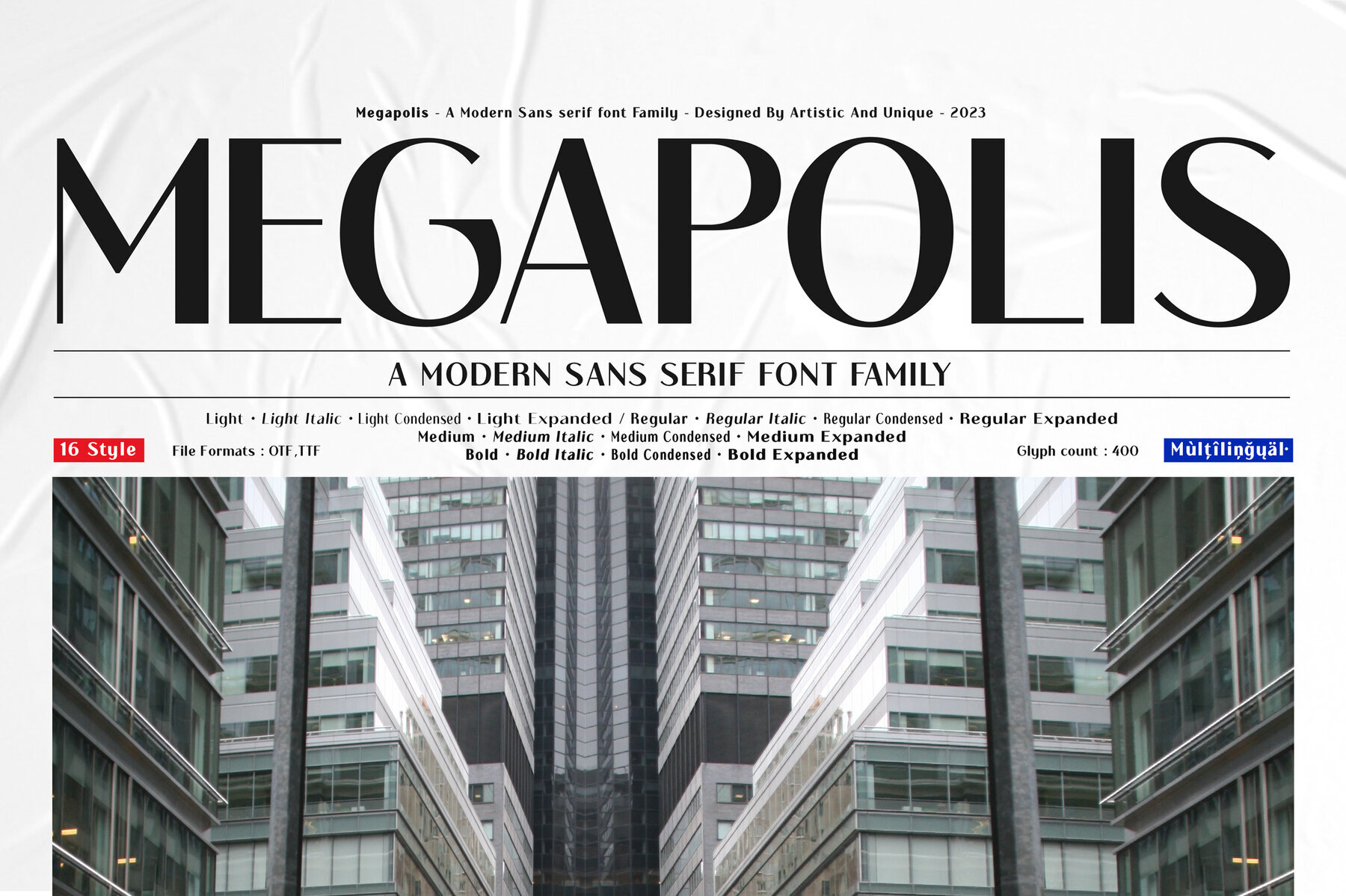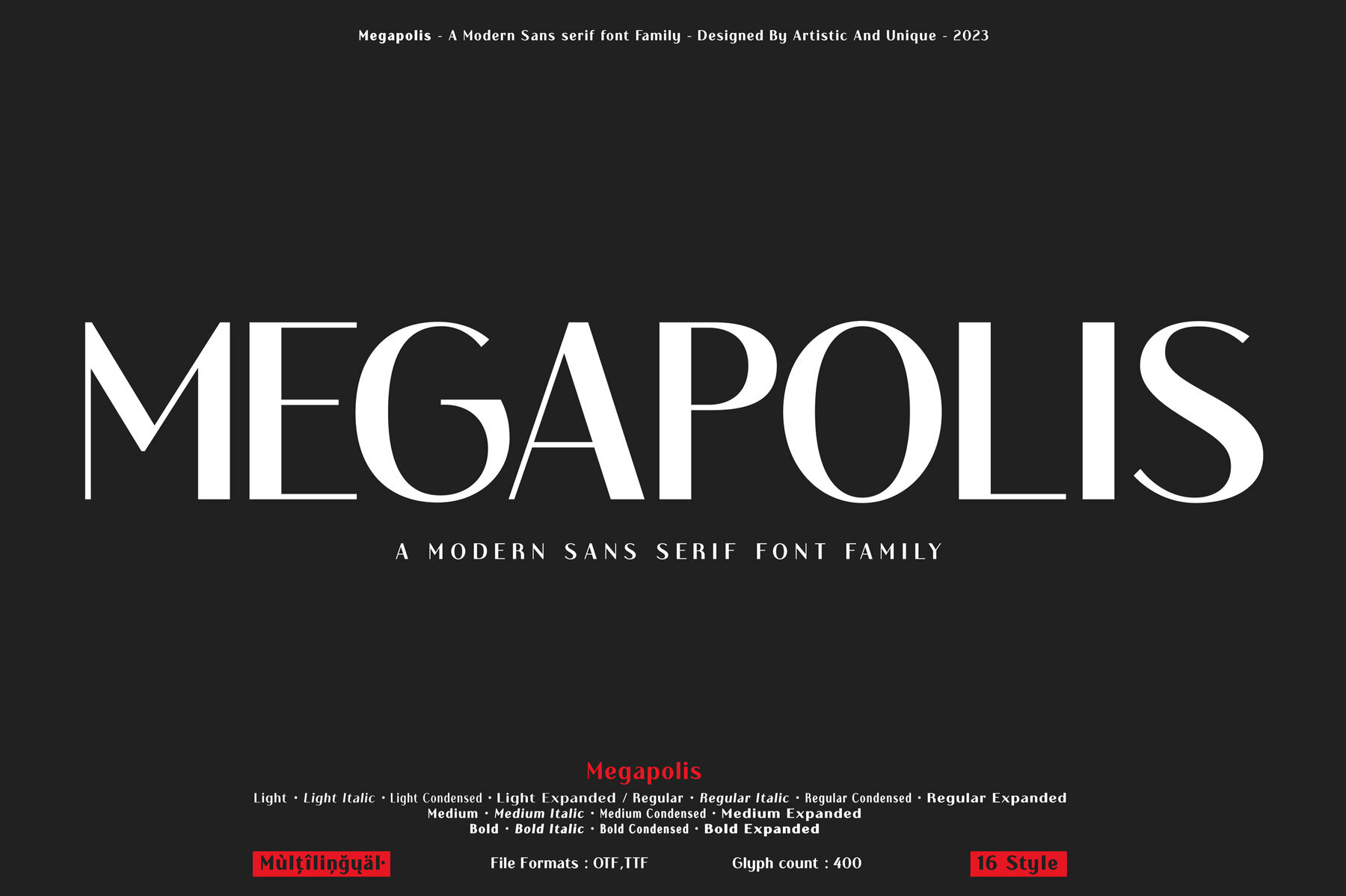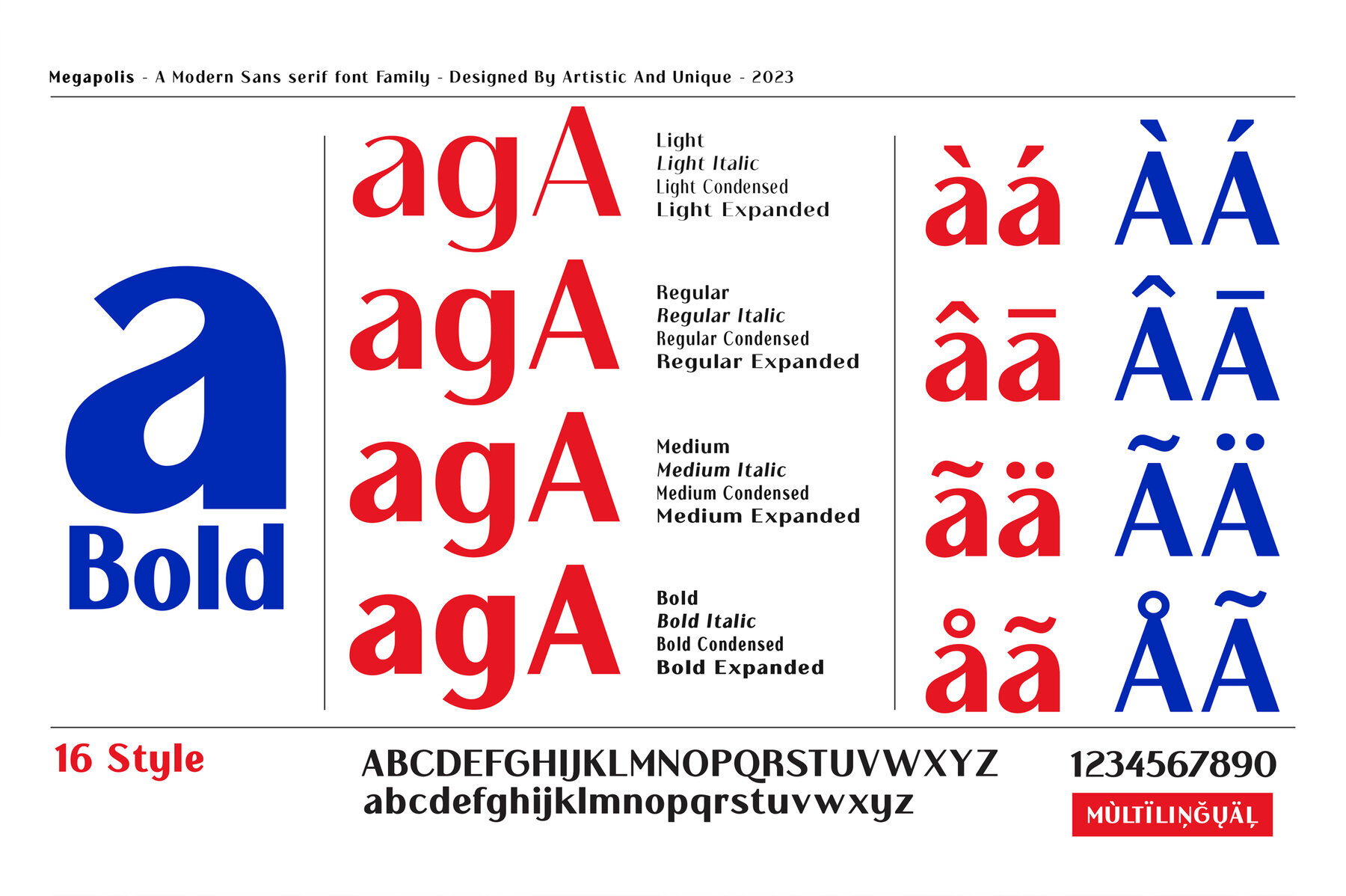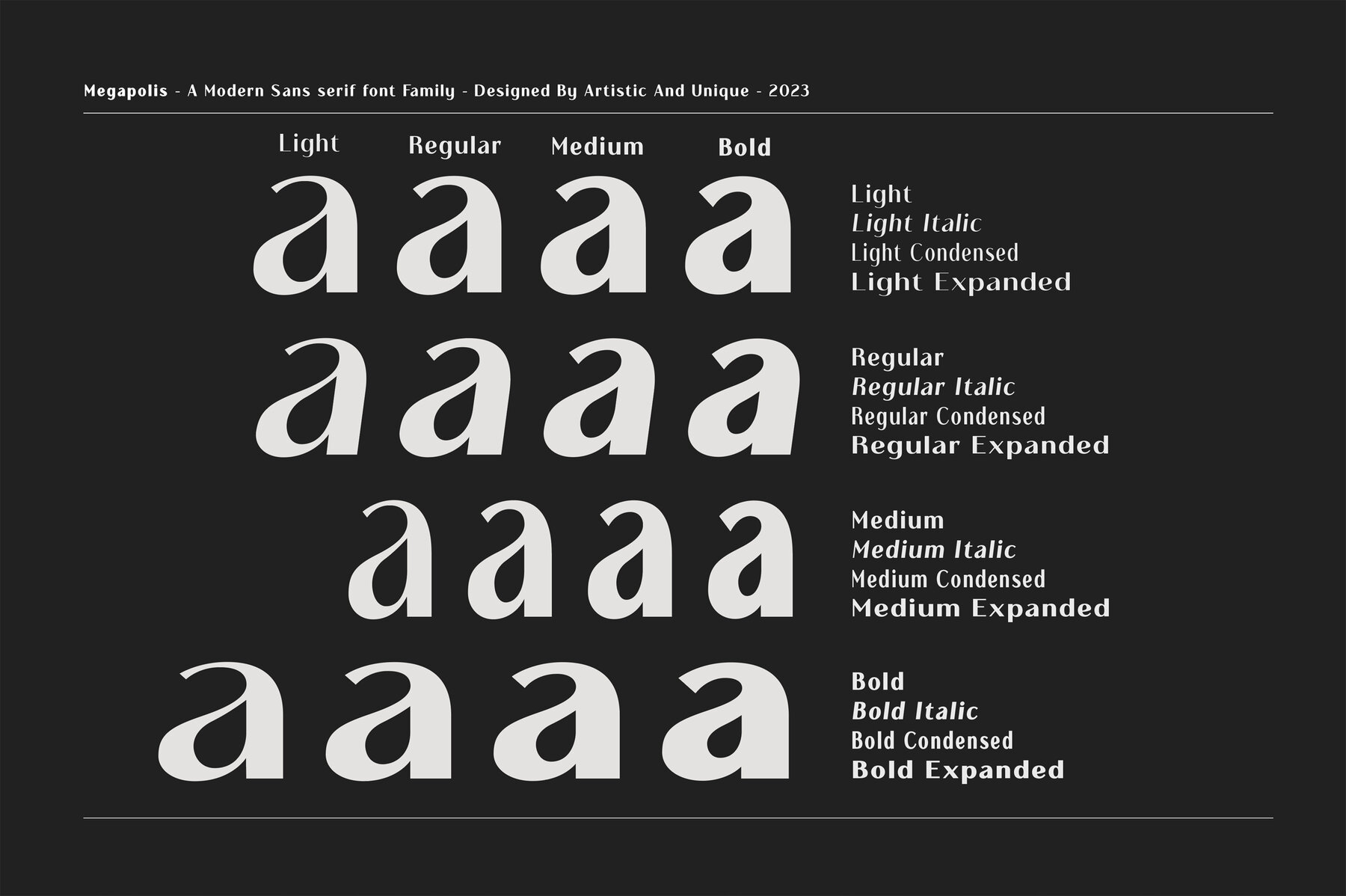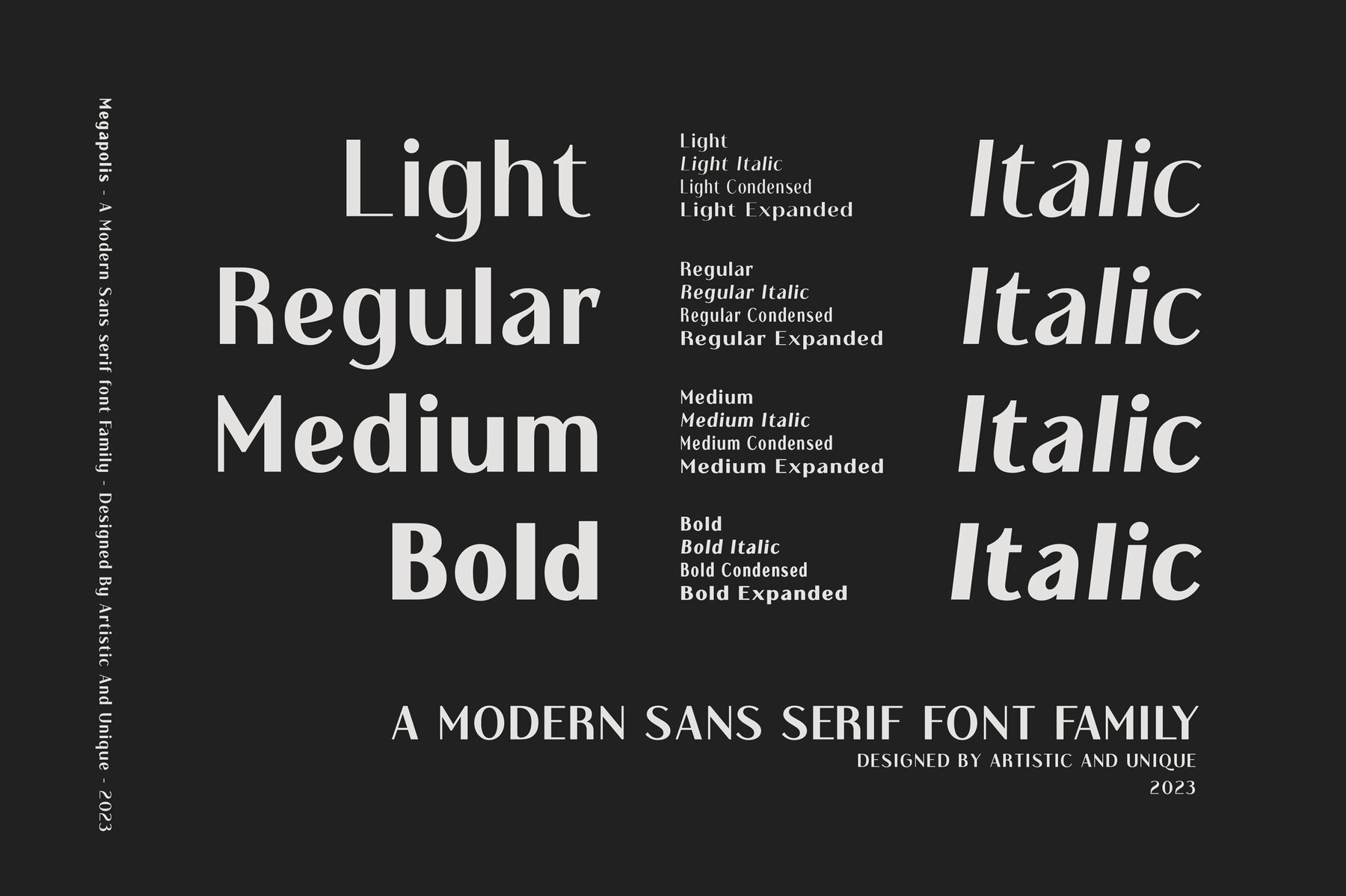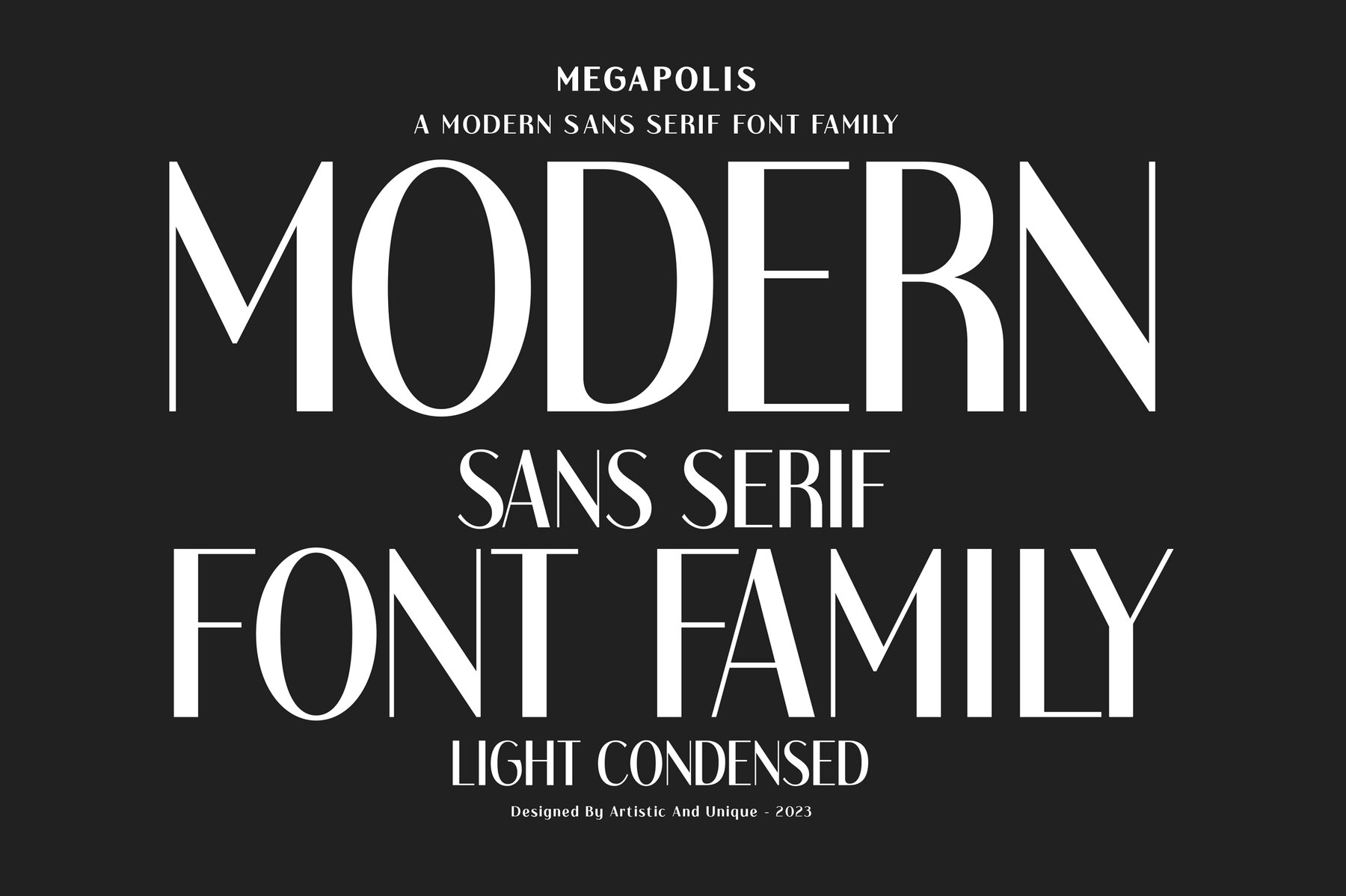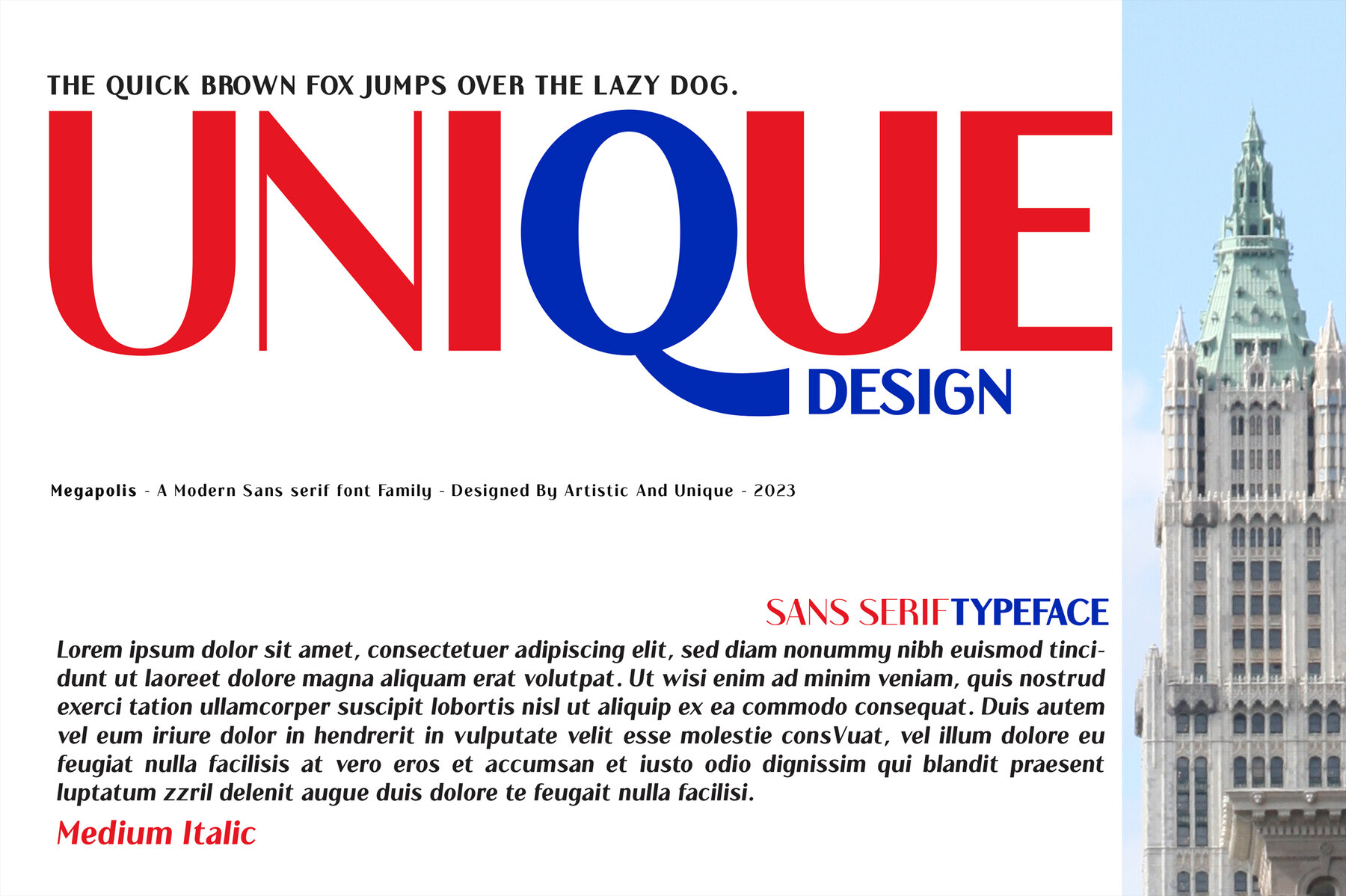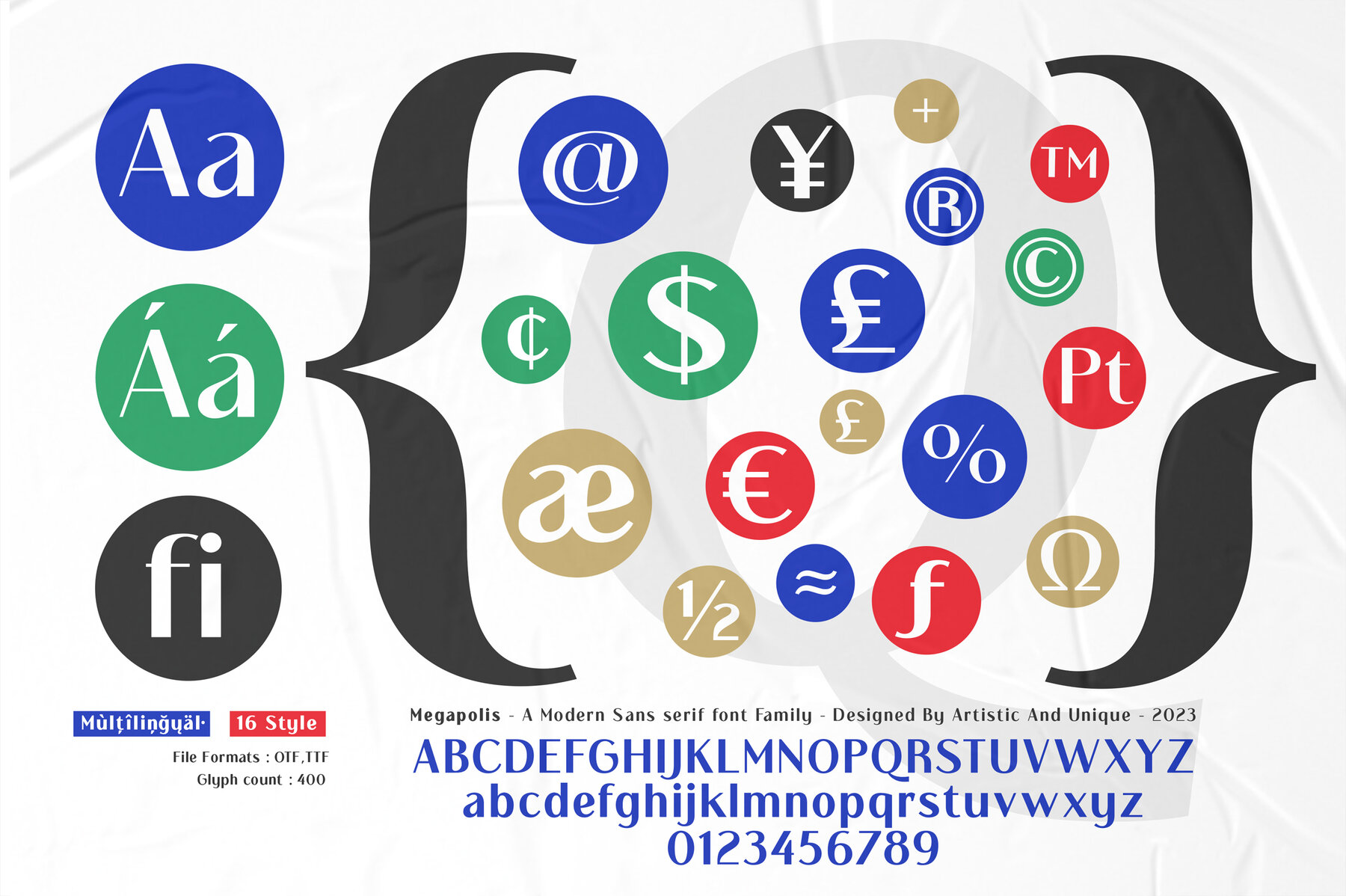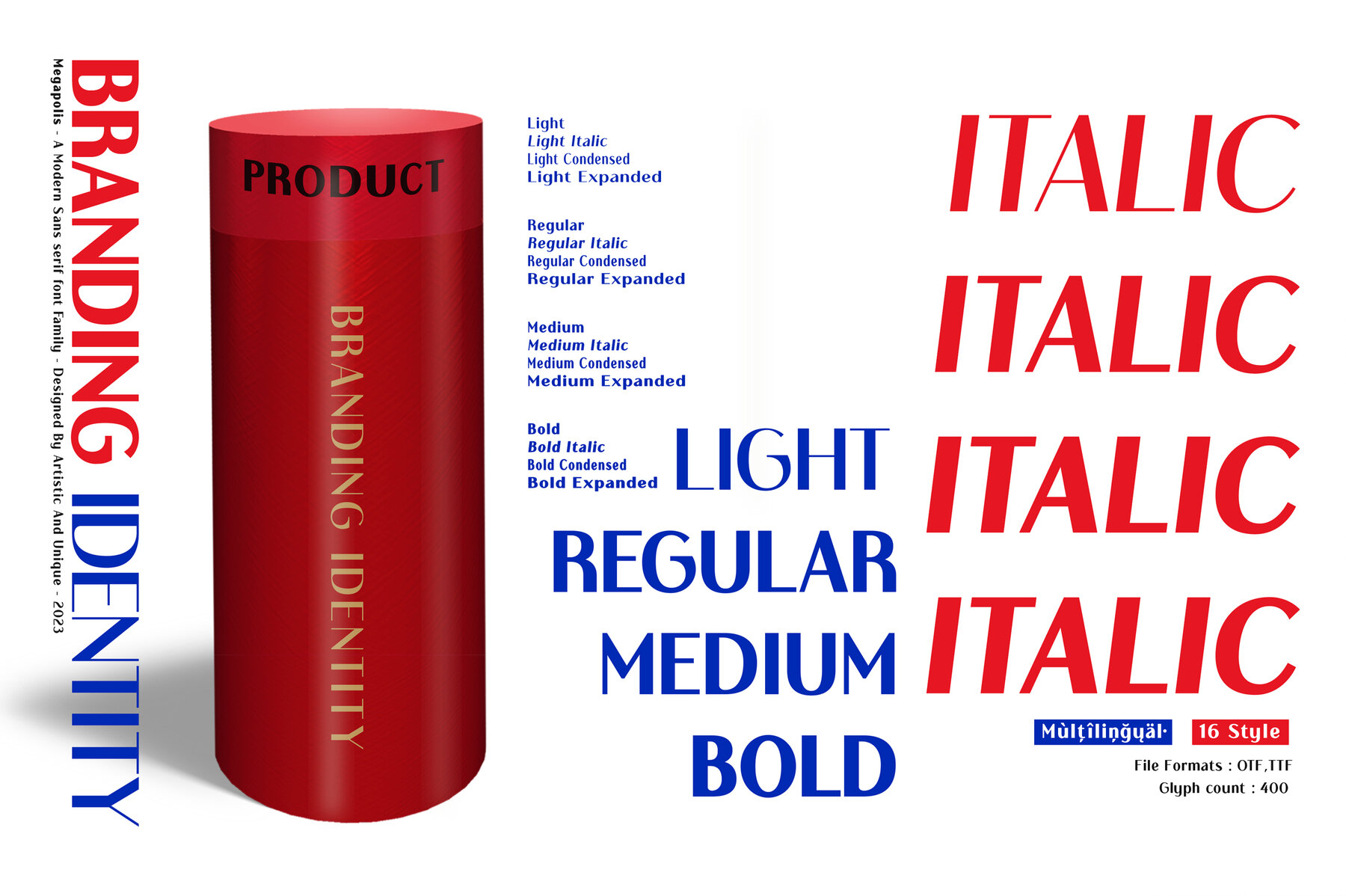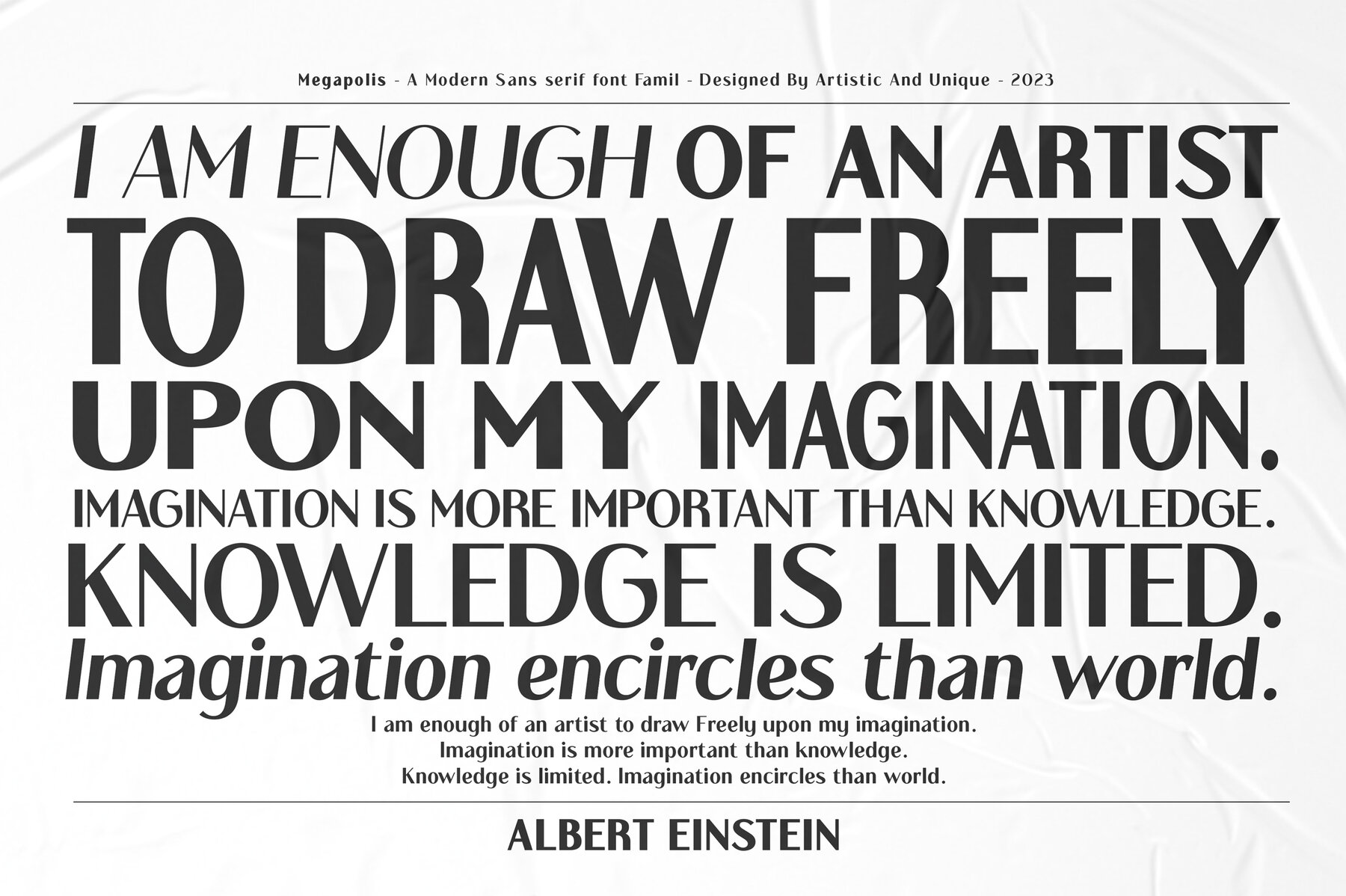
Megapolis Font
Megapolis offers a contemporary touch with its clean, modern structure across 16 varied styles. Supporting multiple languages, this font family adapts effortlessly to diverse design needs. Its versatility shines from subtle body text to commanding headlines.Megapolis: Versatile Sans Serif Font Family
Engage with the elegance of Megapolis as you shape your distinct design projects.